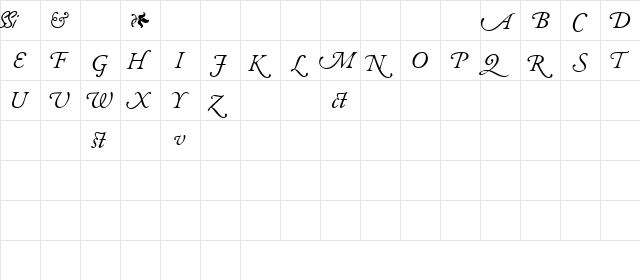
GaramondAlternateSSK Italic
Design Context for GaramondAlternateSSK Typeface
GaramondAlternateSSK offers clean, dependable letterforms without strong stylistic allegiance, making it a practical choice for designers who need flexibility. The slanted form adds forward momentum and visual energy.